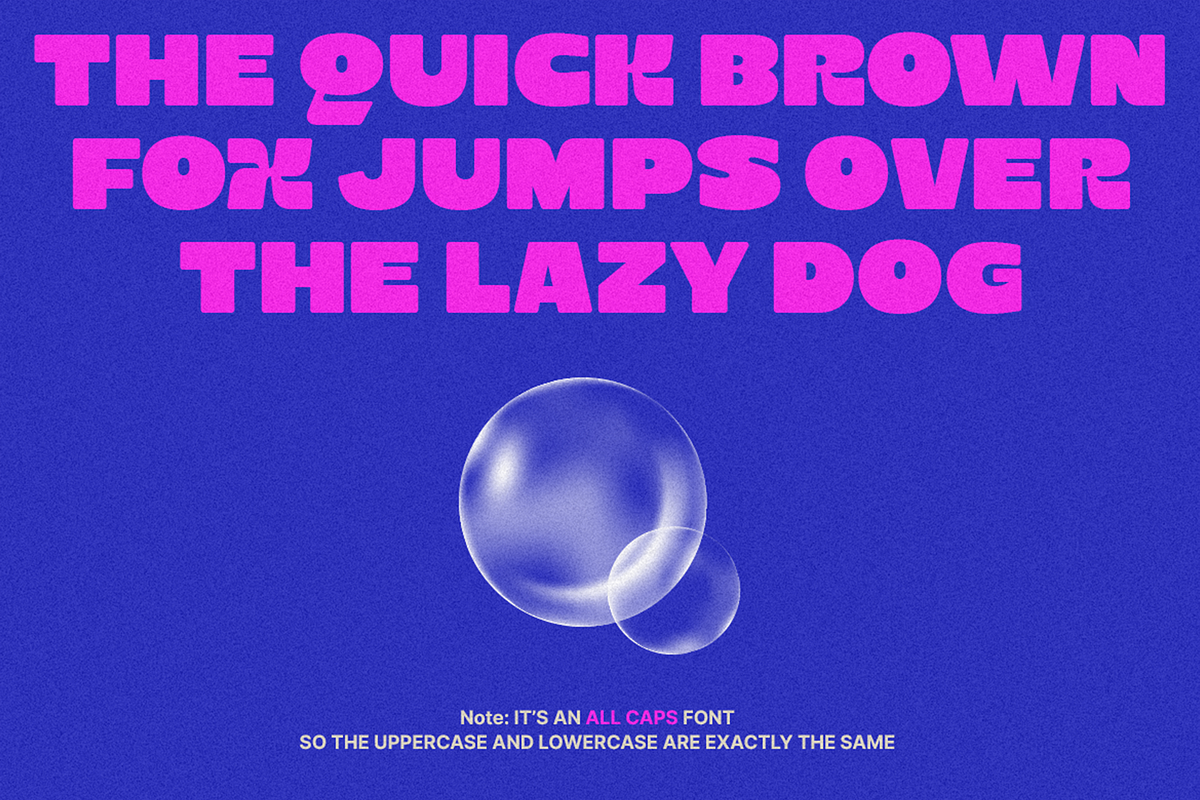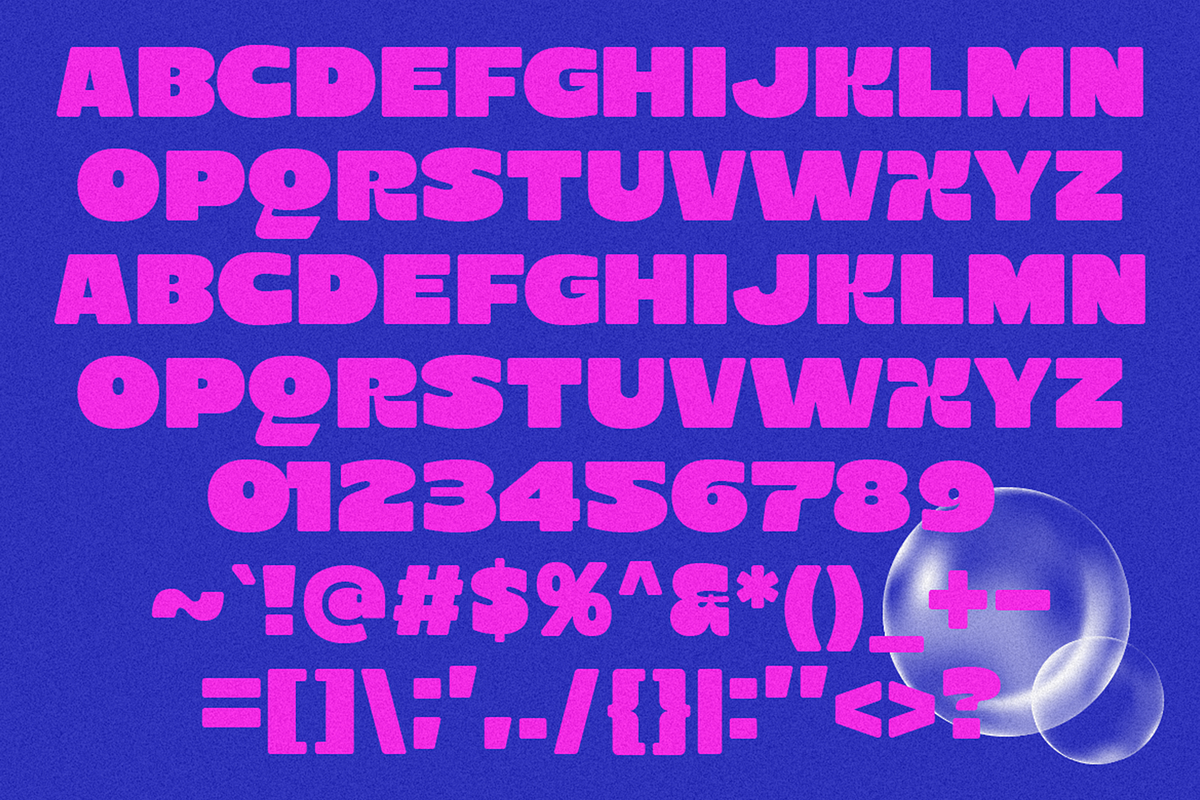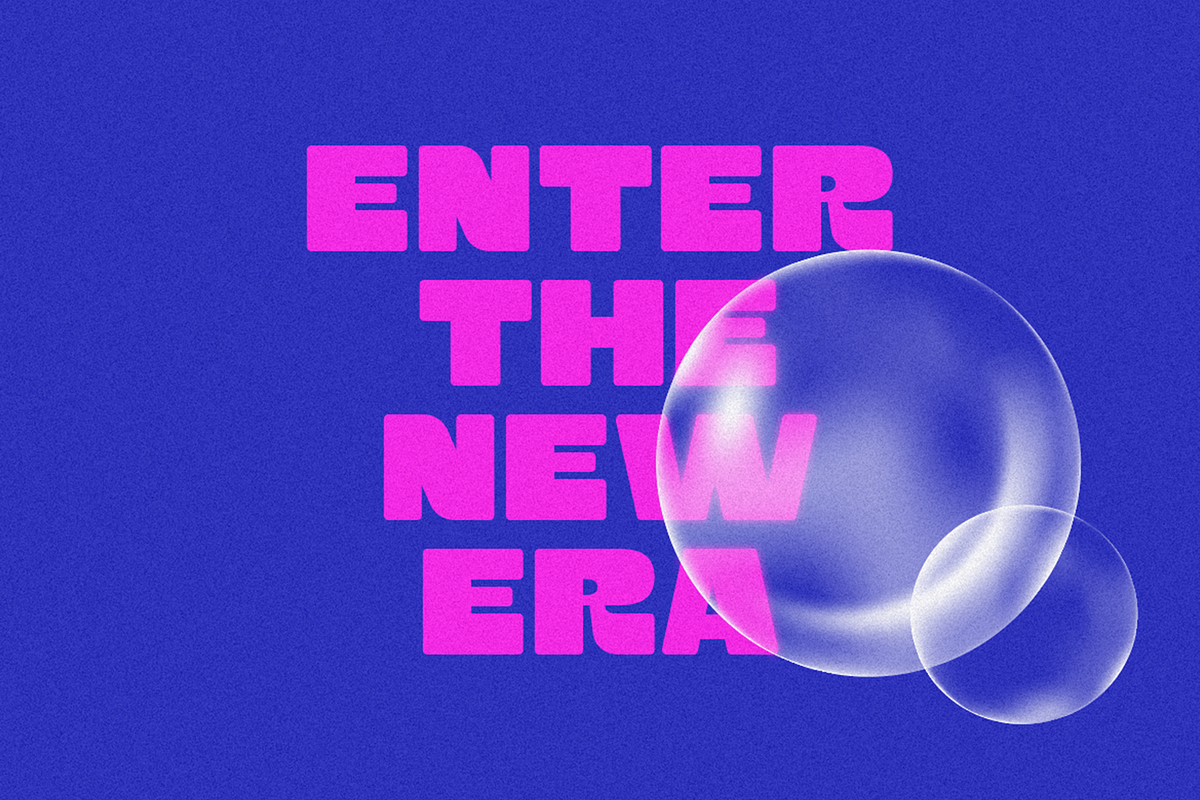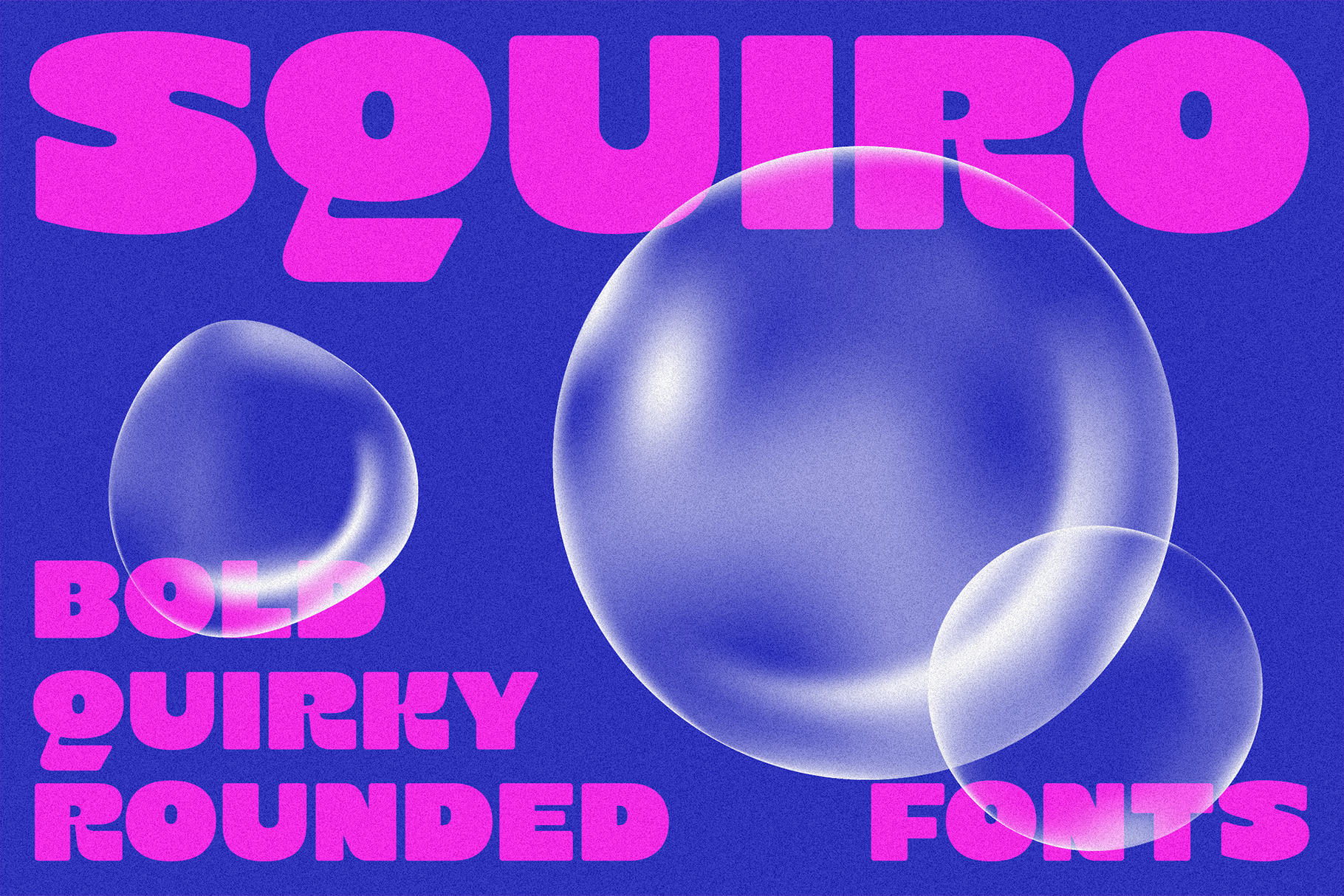
Squiro - Bold Rounded Quirky Fonts
Step into the future of typography with Squiro – a font that dares to be different. With its bold, wide square silhouette and rounded corners, Squiro brings a quirky, experimental vibe to your designs. Each letter is crafted to stand out, making it perfect for projects that demand attention and creativity.
Whether you're designing a logo, crafting a brand identity, or creating eye-catching headlines, Squiro’s unique shape and playful personality make it a versatile choice for:
- Logos & Branding – Stand out in a crowded market.
- Display & Headlines – Grab attention with bold, quirky typography.
- Titles & Packaging – Add a modern, experimental edge.
- Posters & Social Media – Make your designs unforgettable.
Why Choose Squiro?
- Bold & Wide Square Silhouette – Perfect for making a statement.
- Rounded Corners – Soft yet striking, with a modern touch.
- Quirky & Experimental – Ideal for creative, unconventional designs.
- Versatile & Eye-Catching – Works across logos, branding, and displays.